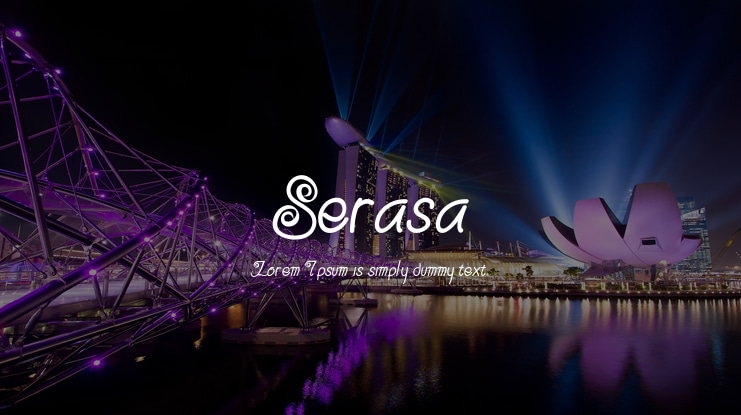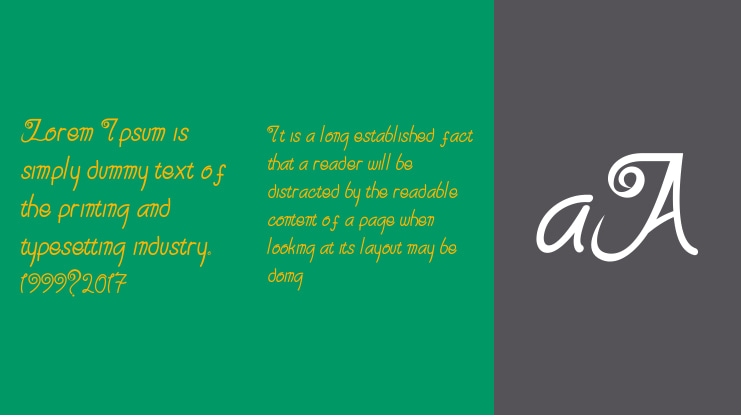
Serasa Font
Font that can be used as a logo or trademark / brand. From that concept, I made "Serasa" a handwritten font with a little style. Most fonts for logos are latin, italic with handwriting that connects each letter, I want to make a different one